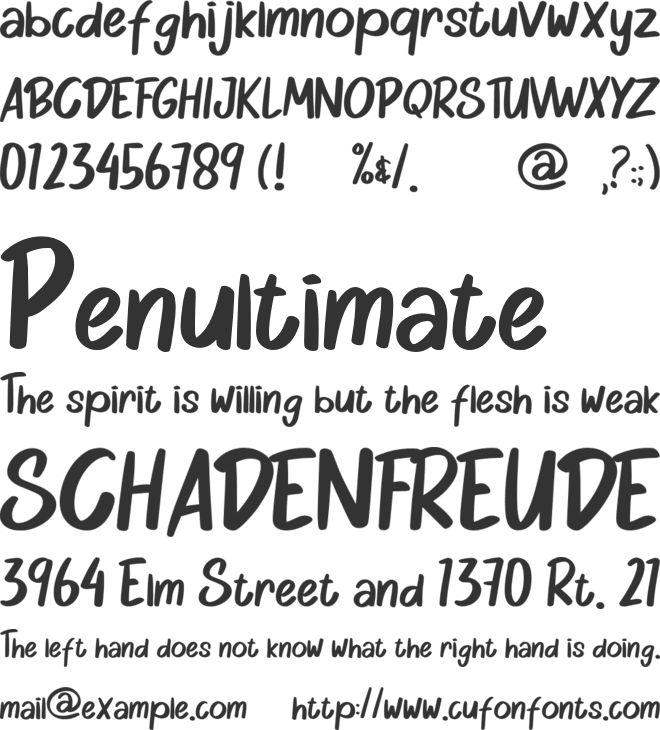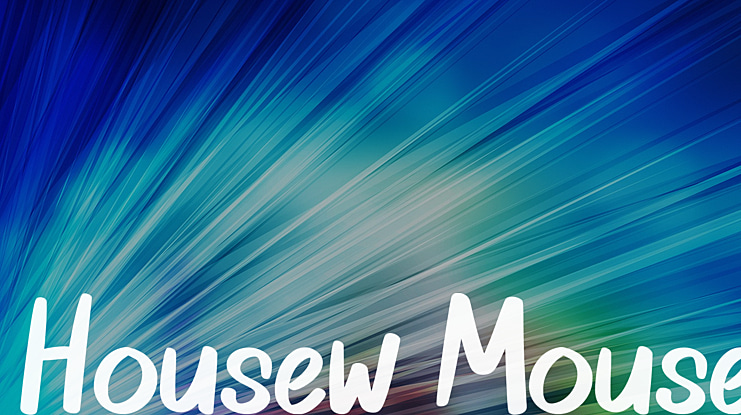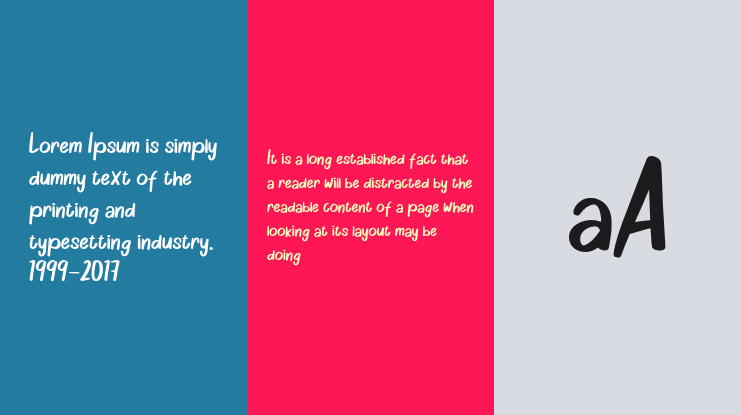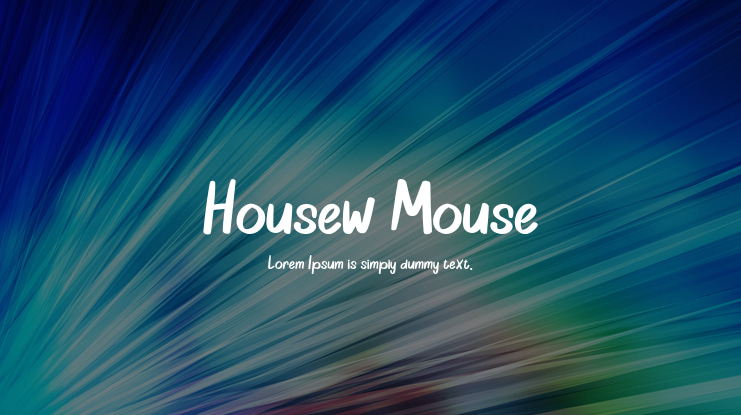
Housew Mouse Font
This is a handwritten font. Housew Mouse is perfect for branding project, apparel, labels, magazines, books, greeting / wedding cards, packaging, fashion, make up, stationery, and any type of advertising purpose or just used to express words above the background.